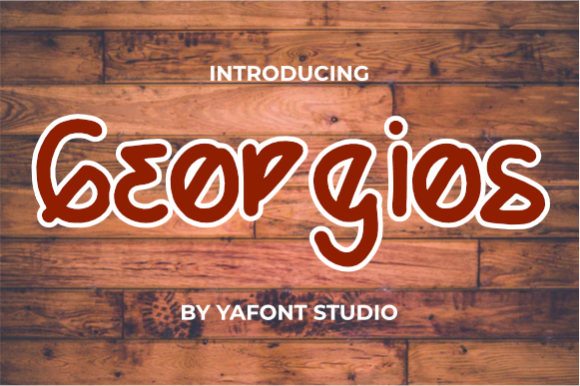
Introducing Georgios Font, the captivating display font that ignites your creativity and propels your designs to new heights. With its playful and distinctively handcrafted charm, Georgios Font is the perfect companion for unleashing your artistic flair.
Crafted with meticulous attention to detail by the renowned font foundry Ciriative, Georgios Font is a visual masterpiece that will leave a lasting impression. Its playful strokes and energetic curves dance across the page, evoking a sense of joy and wonder. Whether you're a seasoned designer or just starting your design journey, Georgios Font will elevate your projects with its boundless versatility.
Explore the limitless possibilities of Georgios Font, from crafting eye-catching logos and branding materials to creating whimsical invitations and greeting cards. Its playful spirit adds a touch of magic to digital designs, presentations, and social media graphics. Unleash your creativity and let Georgios Font transform your ideas into captivating visual stories.
With Georgios Font, every project becomes an opportunity to showcase your unique style and artistic vision. Its bold personality and captivating presence will make your designs stand out from the crowd, leaving a lasting impact on your audience. So, immerse yourself in the world of Georgios Font and let your imagination soar.